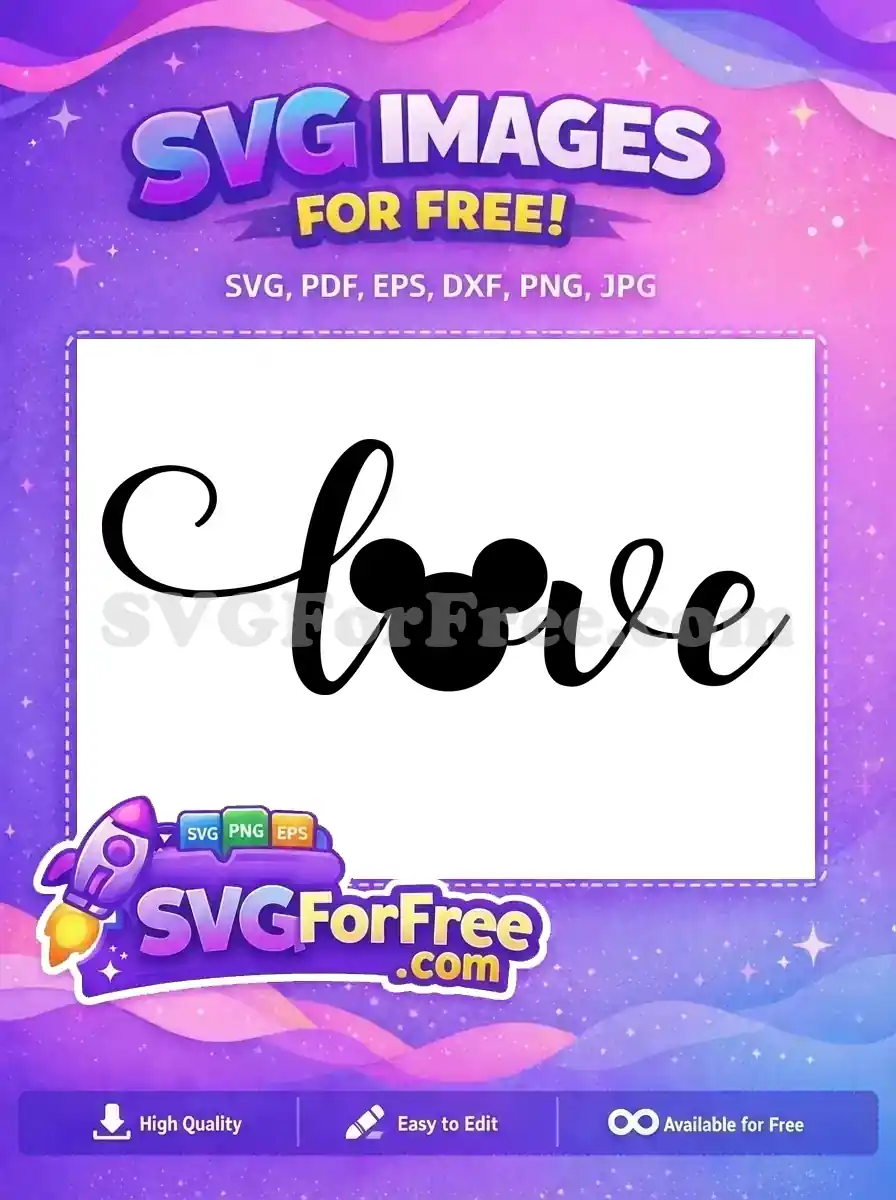
Free Love Script Font Free Mickey Head Silhouette Disney Free SVG – Instant Download
An elegant, flowing cursive script spelling out the word “love”. A simple and complimentary design element.
Free Love Script Font Free Mickey Head Silhouette Disney Free SVG